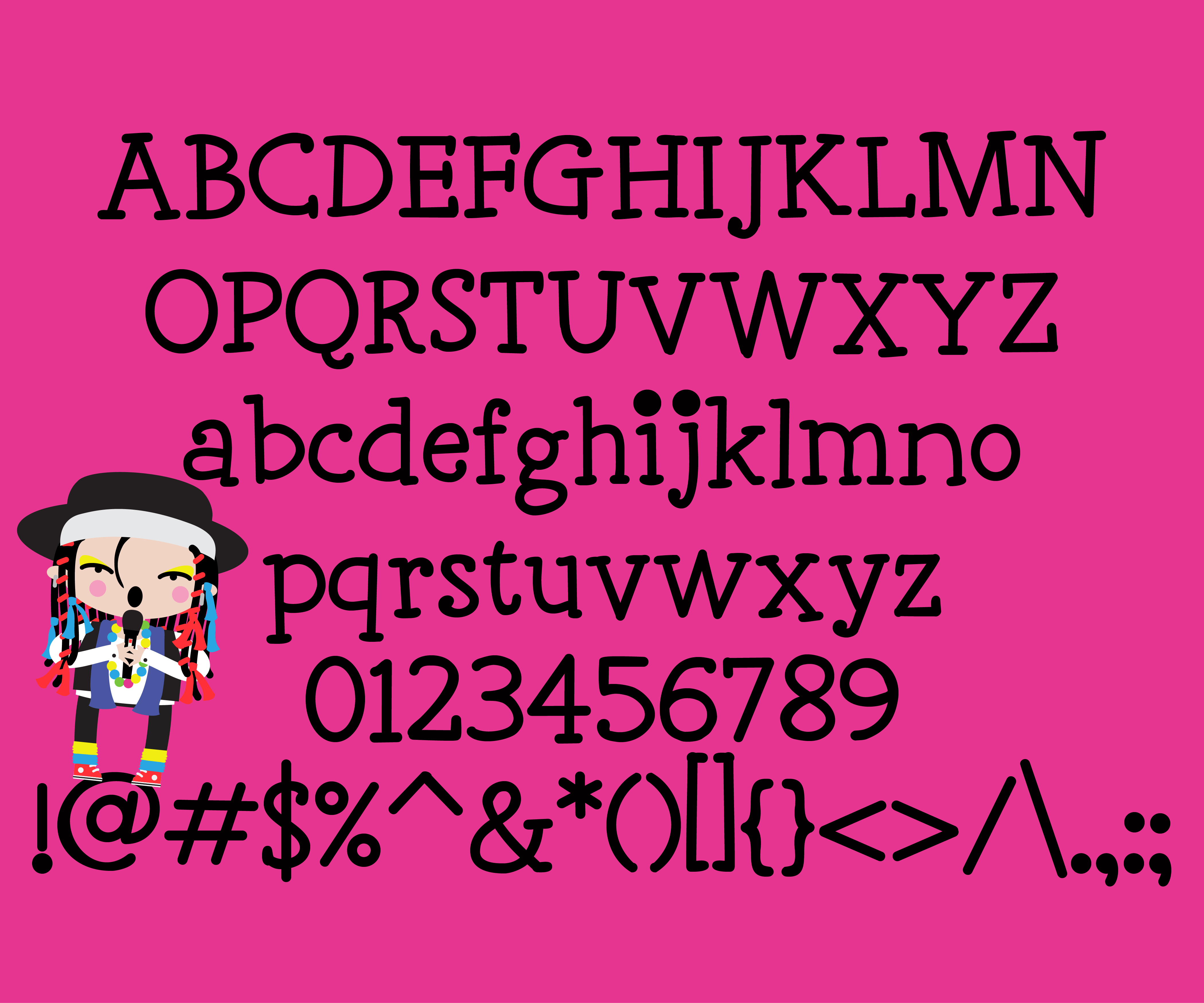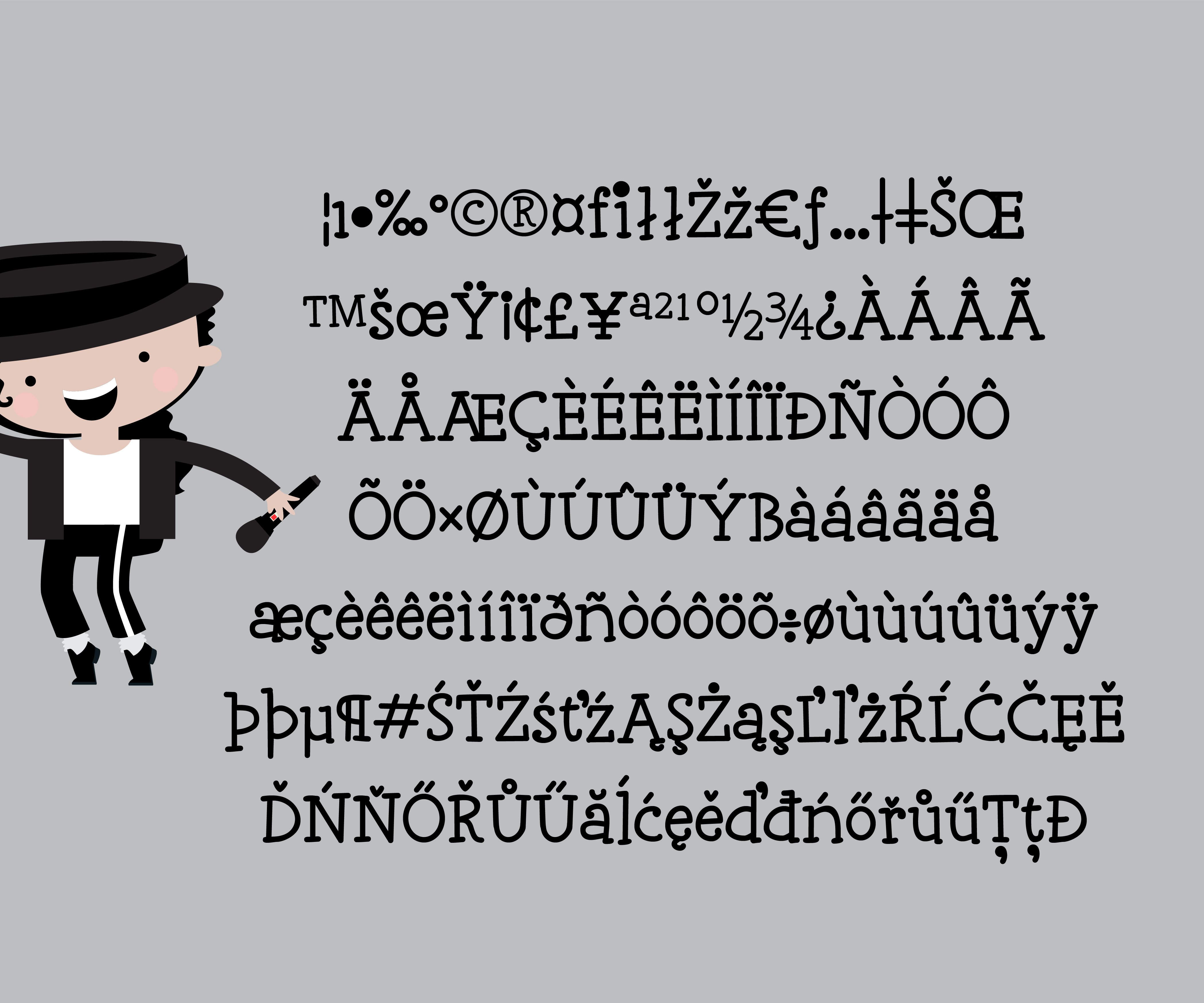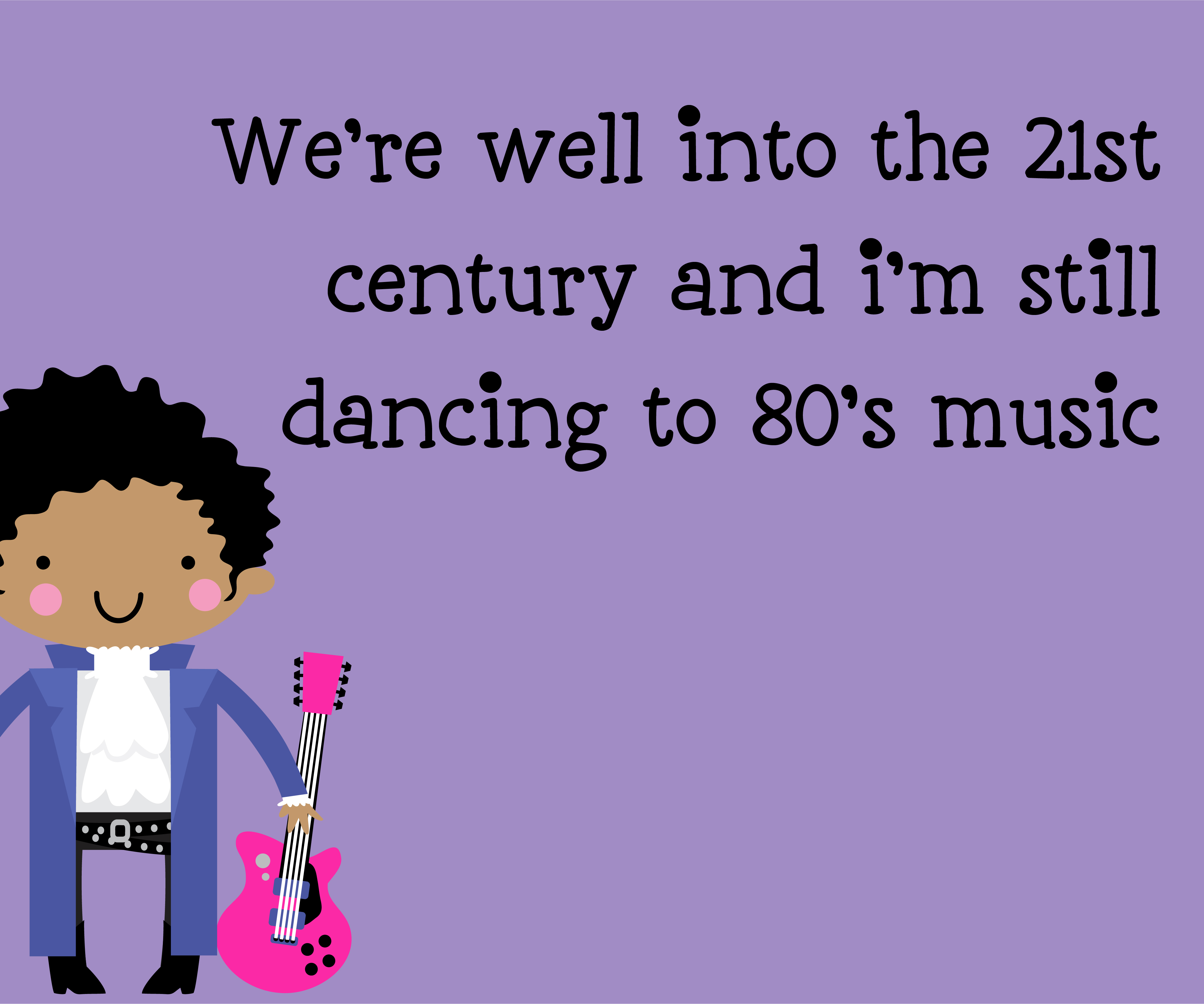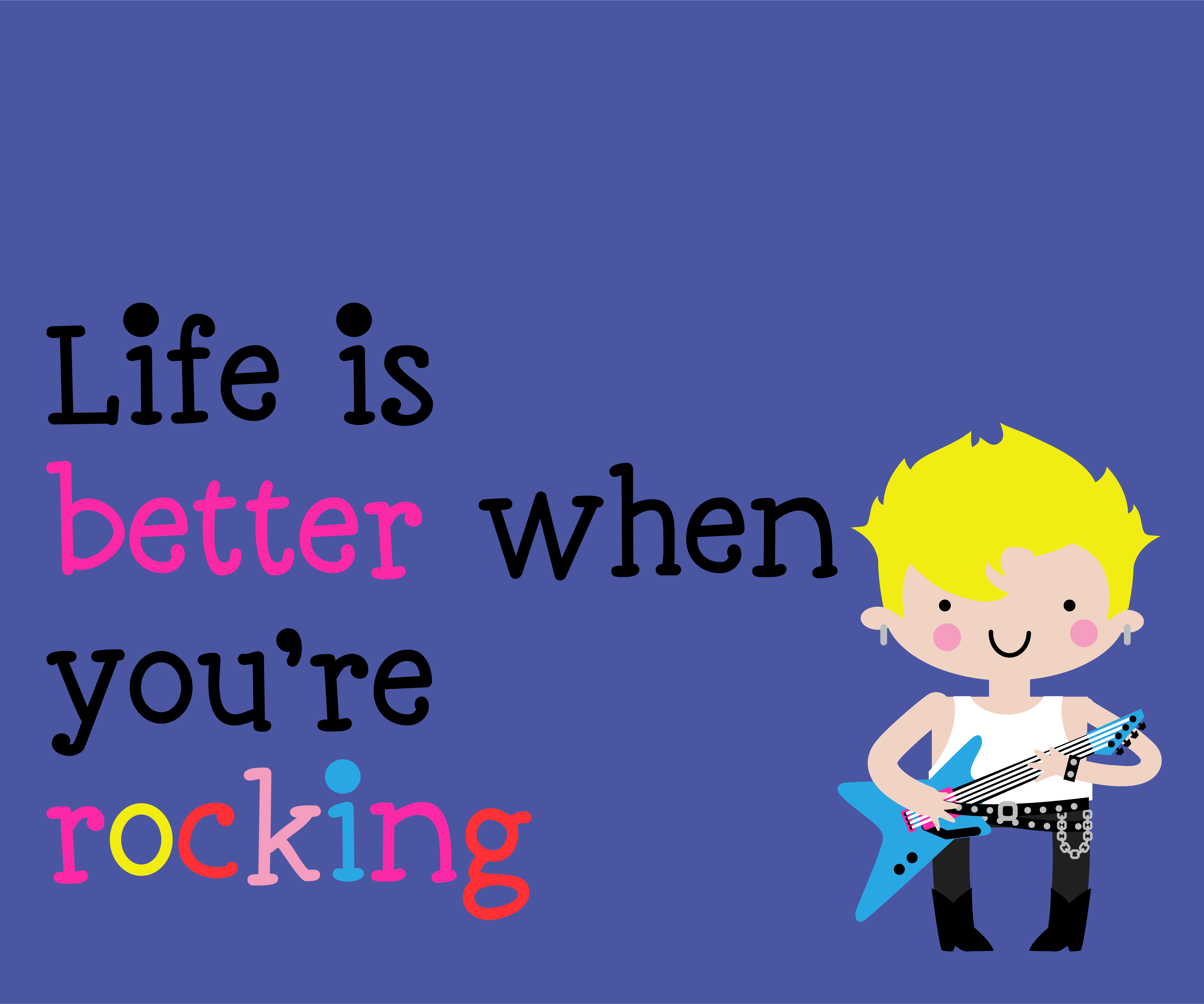
Brainpop Font: A Fun Slab Serif Font for Creative Designs
Are you a designer or crafter looking for a unique and playful font to elevate your creative projects? Look no further than Brainpop, a fun slab serif font that exudes a hand-crafted whimsiness. With its distinctive style, Brainpop is perfect for a wide range of design styles, from playful and quirky to bold and adventurous.
What is Brainpop Font?
Brainpop is a slab serif font that features a unique blend of playfulness and sophistication. Its hand-crafted design gives it a charming, one-of-a-kind feel that’s sure to capture attention. The font’s slab serif style adds a touch of ruggedness, making it perfect for designs that require a bit of edge.
Characteristics of Brainpop Font
So, what makes Brainpop font so special? Here are a few of its key characteristics:
- Hand-crafted whimsiness: Brainpop’s hand-crafted design gives it a unique, organic feel that’s perfect for designs that require a personal touch.
- Slab serif style: The font’s slab serif style adds a touch of ruggedness and sophistication, making it perfect for a wide range of design styles.
- Playful and bold: Brainpop is a playful and bold font that’s sure to capture attention. Its fun and adventurous style makes it perfect for designs that require a bit of personality.
Uses for Brainpop Font
Brainpop font is incredibly versatile, making it perfect for a wide range of design styles and applications. Here are a few ideas to get you started:
- Playful branding: Brainpop is perfect for brands that want to add a touch of playfulness and whimsy to their branding.
- Kids’ designs: The font’s playful style makes it perfect for designs aimed at kids, such as children’s books, educational materials, and more.
- Headings and titles: Brainpop’s bold and playful style makes it perfect for headings and titles. Use it to add a touch of personality to your designs.
- Signage and displays: The font’s slab serif style makes it perfect for signage and displays. Use it to create eye-catching signs and displays that are sure to capture attention.
Tips for Using Brainpop Font
Here are a few tips for using Brainpop font in your designs:
- Pair it with a simple font: Brainpop is a bold and playful font, so it’s best to pair it with a simple font that won’t compete with it.
- Use it for headings and titles: Brainpop’s bold style makes it perfect for headings and titles. Use it to add a touch of personality to your designs.
- Experiment with colors: Brainpop font looks great in a variety of colors. Experiment with different colors to find the one that works best for your design.
Brainpop font is a fun and playful slab serif font that’s perfect for creative designs. Its hand-crafted whimsiness and bold style make it perfect for a wide range of design styles, from playful and quirky to bold and adventurous. Whether you’re a designer or crafter, Brainpop font is sure to elevate your creative projects and add a touch of personality to your designs.